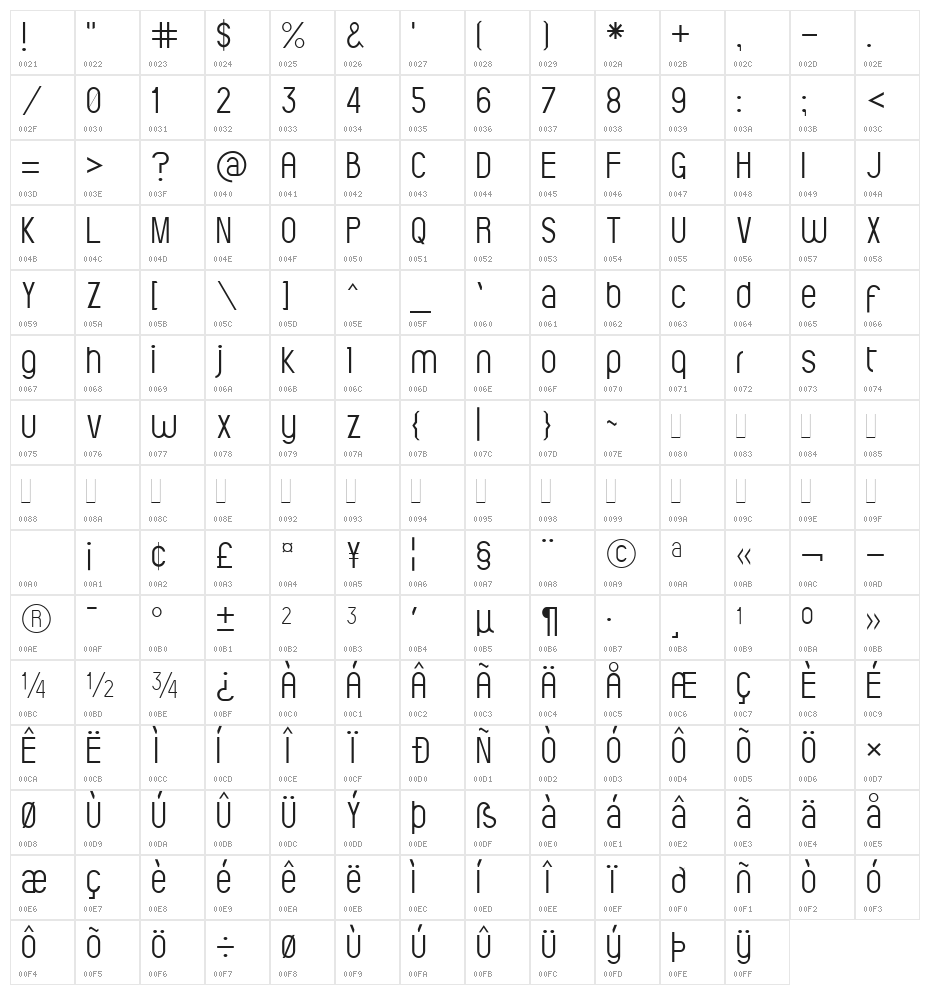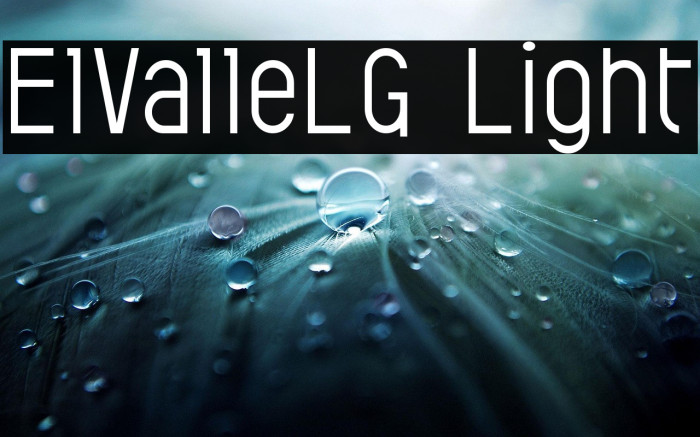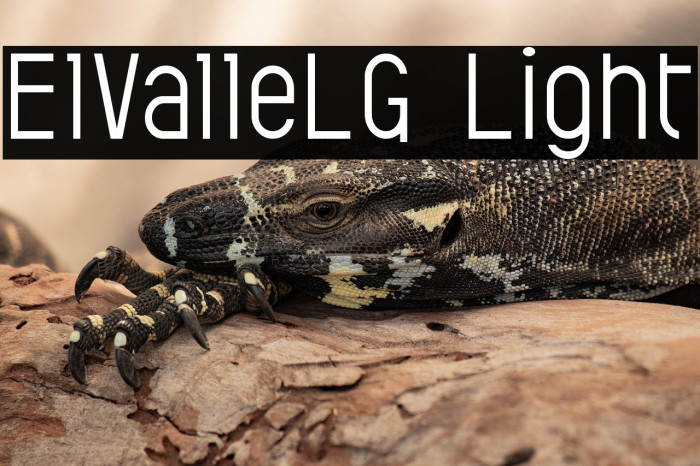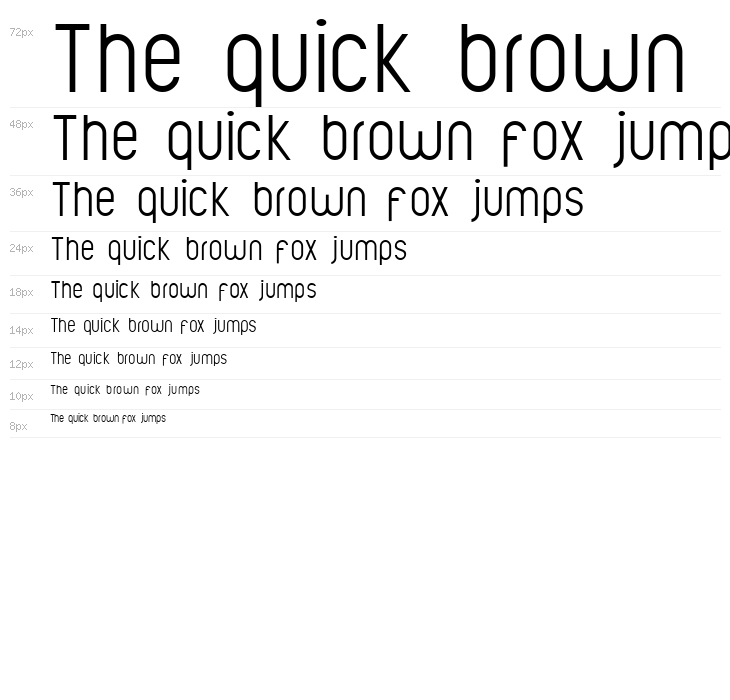
ElValleLG Light Font
ElValleLG Light Description
This font exhibits a clean and modern sans-serif style, characterized by its geometric shapes and uniform stroke widths. The uppercase letters are tall and slightly condensed, providing a sleek and professional appearance. The lowercase letters maintain a consistent height, contributing to the font's readability and versatility. The numerals are clear and distinct, matching the overall aesthetic of the typeface. Special characters are well-defined, ensuring compatibility with a wide range of applications. The font's simplicity and elegance make it suitable for both digital and print media.